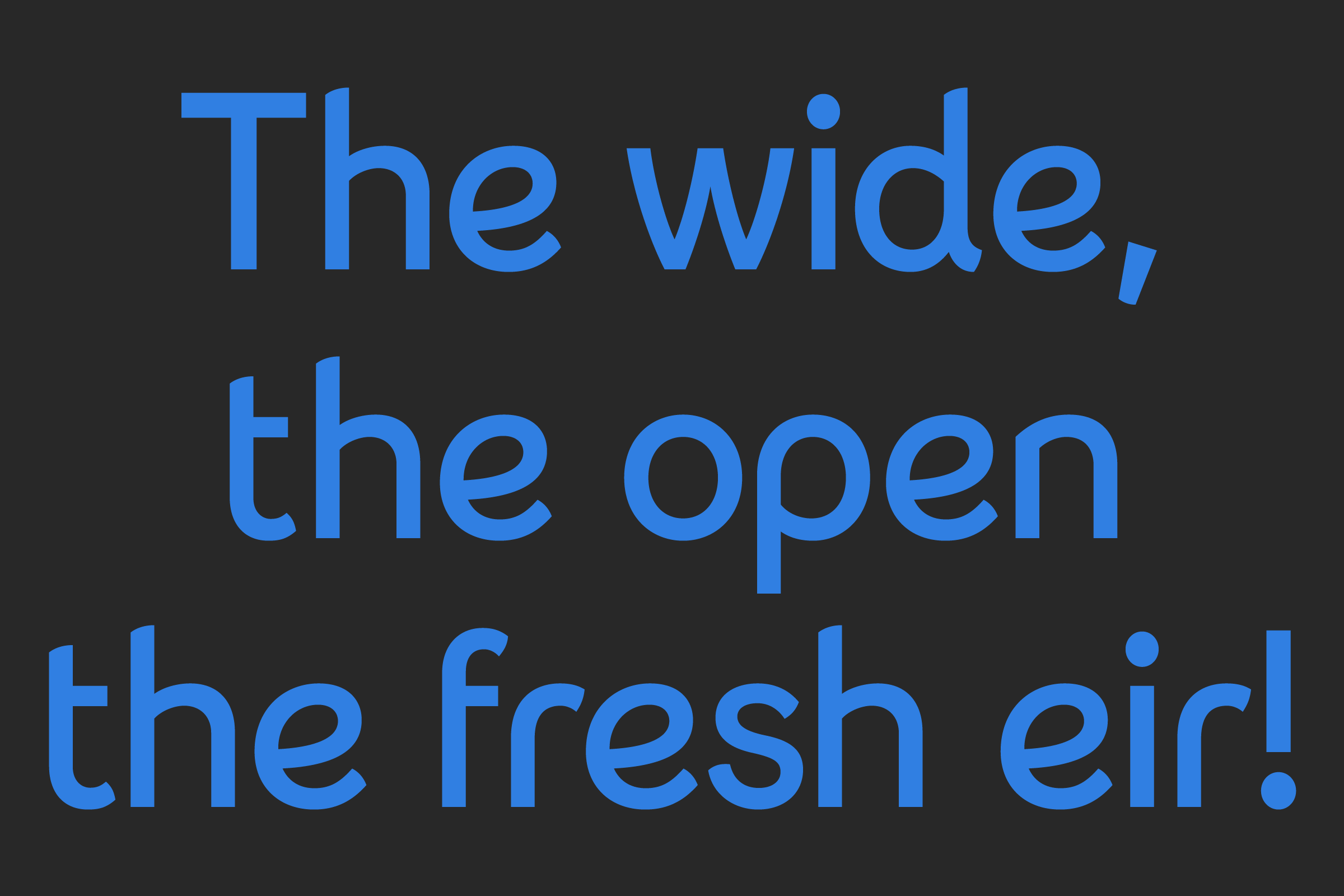
eir
A comprehensive re-naming and re-branding, courtesy of London-based Moving Brands, provoked a thorough typographic reexamination for eir (previously Eircom), Ireland’s largest telecommunications business.
Prompted by the sinuous forms within the newly-established eir logotype, Colophon proposed the creation of a headline typeface that would split the difference — both formally and functionally — between the wordmark and accompanying geometric body copy, ultimately creating a versatile, four-weight sans serif in the spirit of eir and its Irish lineage.
Owing to the organic, single-line construction of the eir logotype — itself a subtle send-up of Celtic linework and Gaelic letterforms — we experimented with economising the construction of certain characters, reducing the number of strokes wherever possible while maintaining legibility.
The e, in this instance, becomes a single line that doubles back on itself; the r sheds the superfluous portion of its stem in favor of restraint. Emulating a simple, gestural script, we imagined a pen or pencil constructing the letterforms in as few (and as fluid) movements as possible.
The resulting type family is one that dynamically flits back
and forth between formal and casual, precise and loose, technical and organic, historical and contemporary, containing the necessary subtleties of both an expressive display face and workhorse body type.
Wide apertures paired with curved shapes provide an affability that’s fitting for an open, national telecom network.
In allowing the form and flow of the re-brand to lead the way, we were able to establish several foundational tenets that then opened the typographic palette to gesture and spirit.
Typeface: eir
Commissioner: Moving Brands / eir
4 Styles: Light, Regular, Medium, Bold
Classification: Neo-Humanist Display Sans Serif